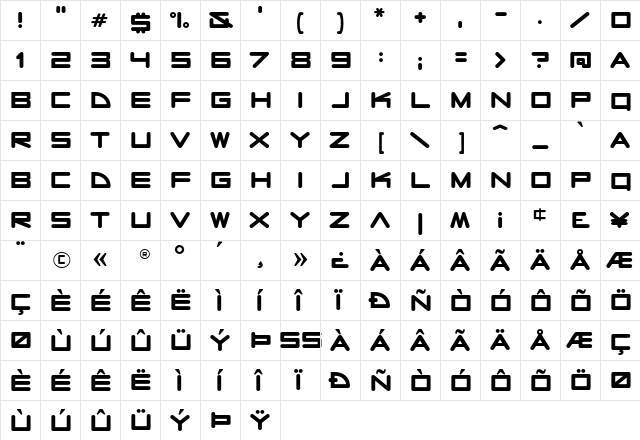
Radio Stars Regular
Design Context for Radio Stars Typeface
Radio Stars is a composed and adaptable typeface that performs quietly and consistently across a wide range of design contexts.